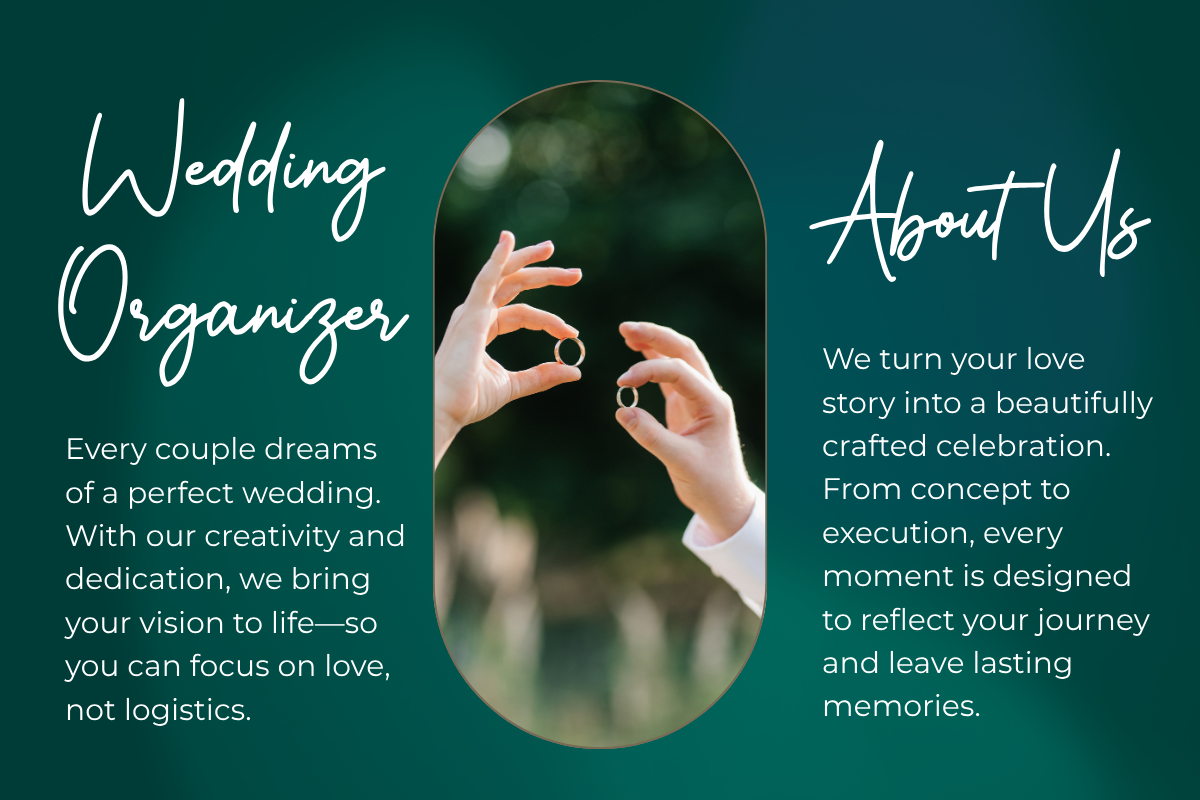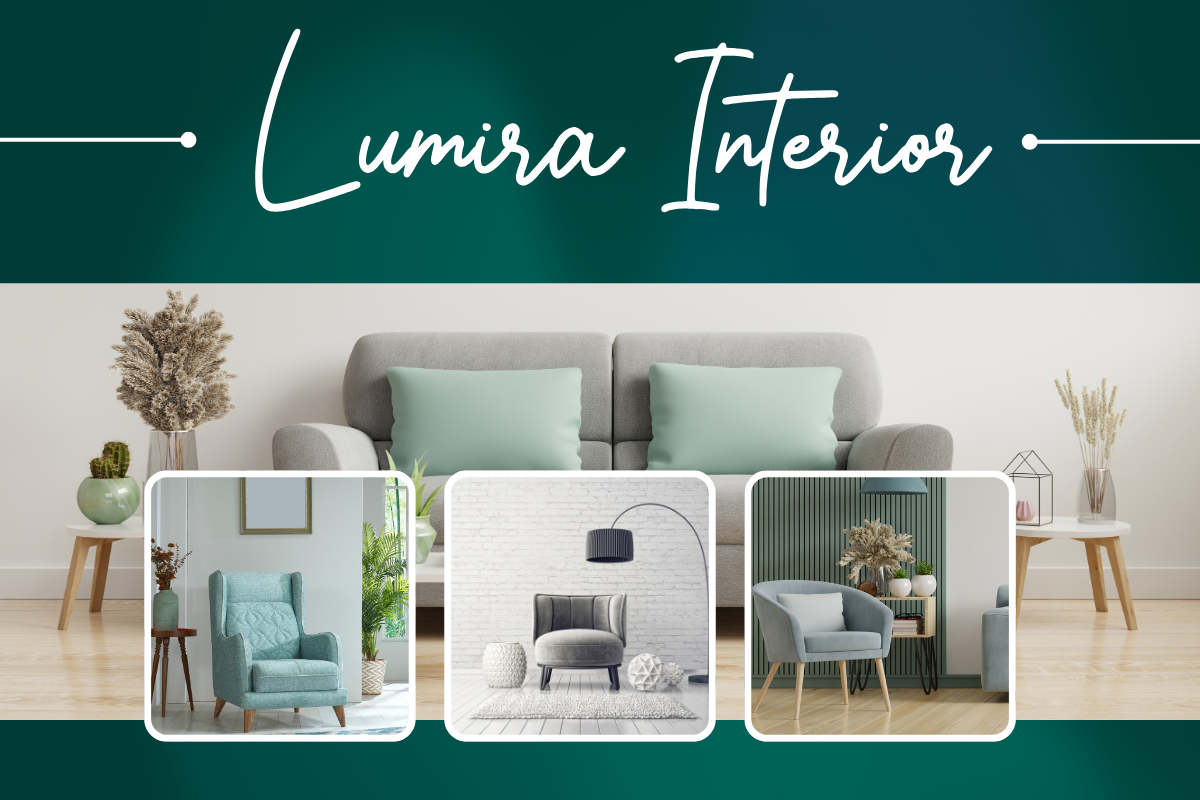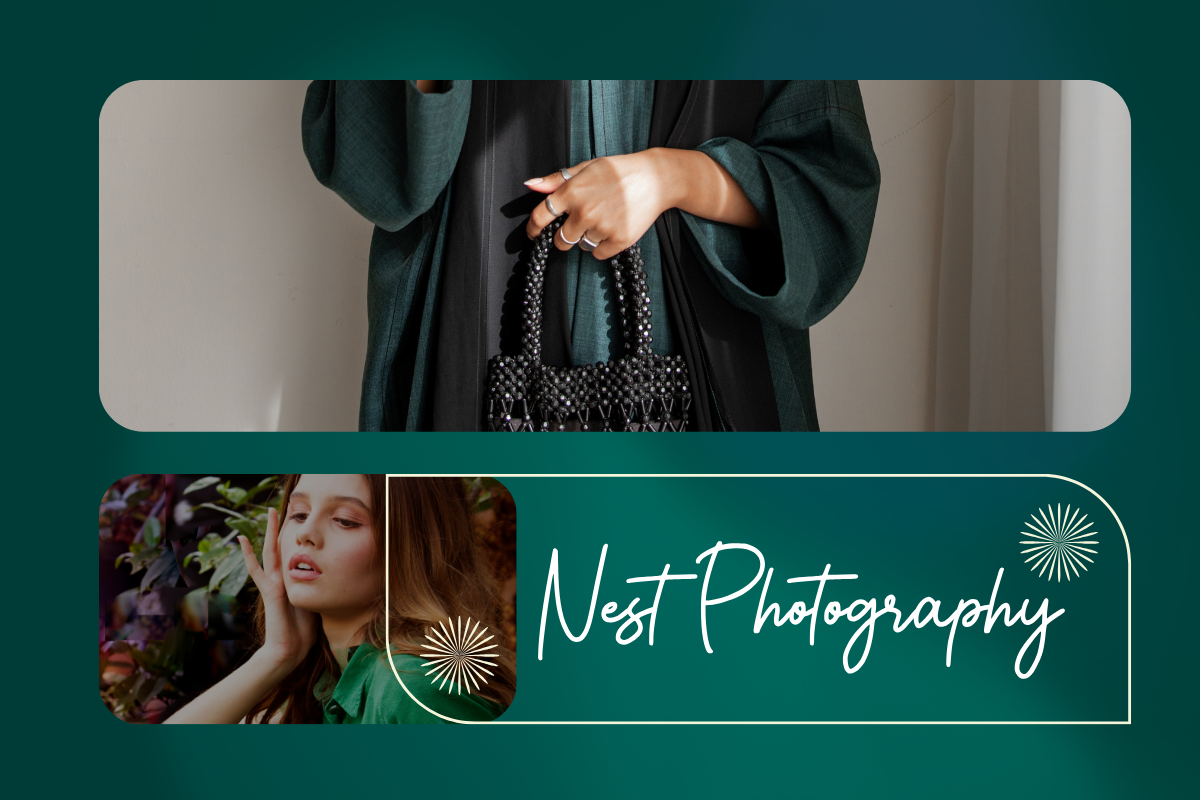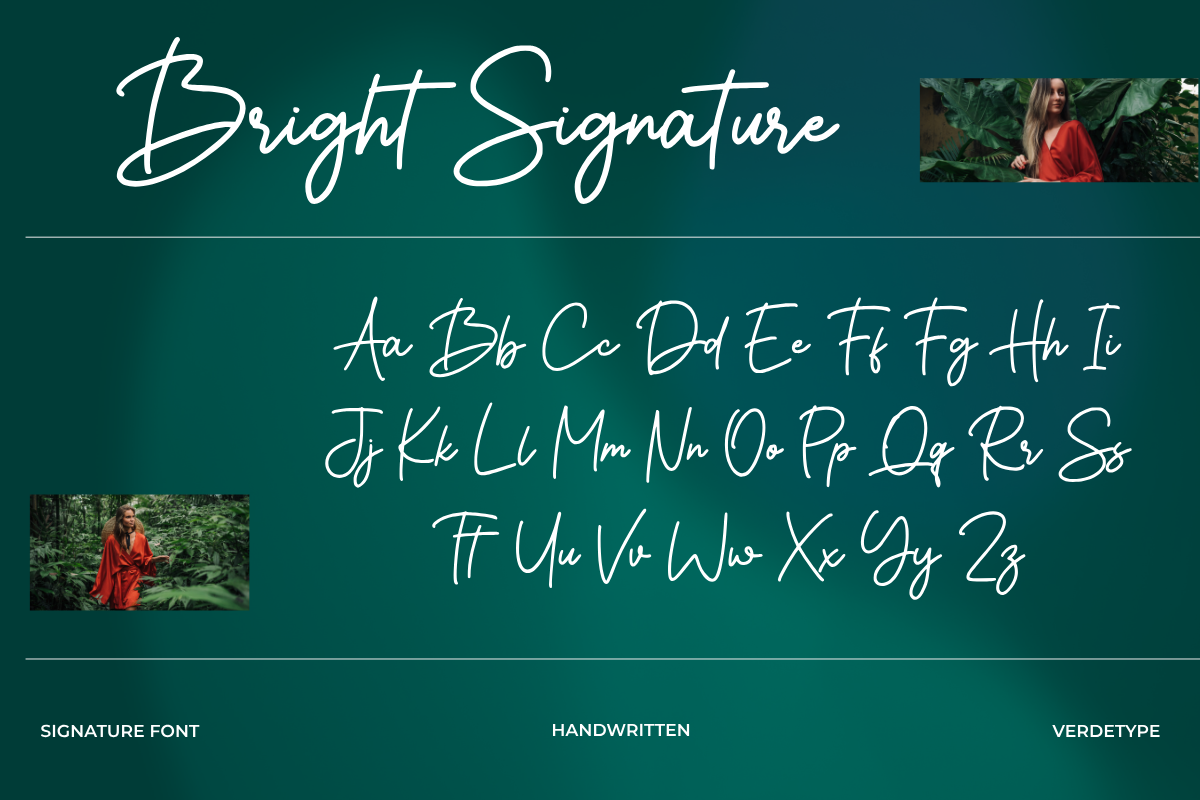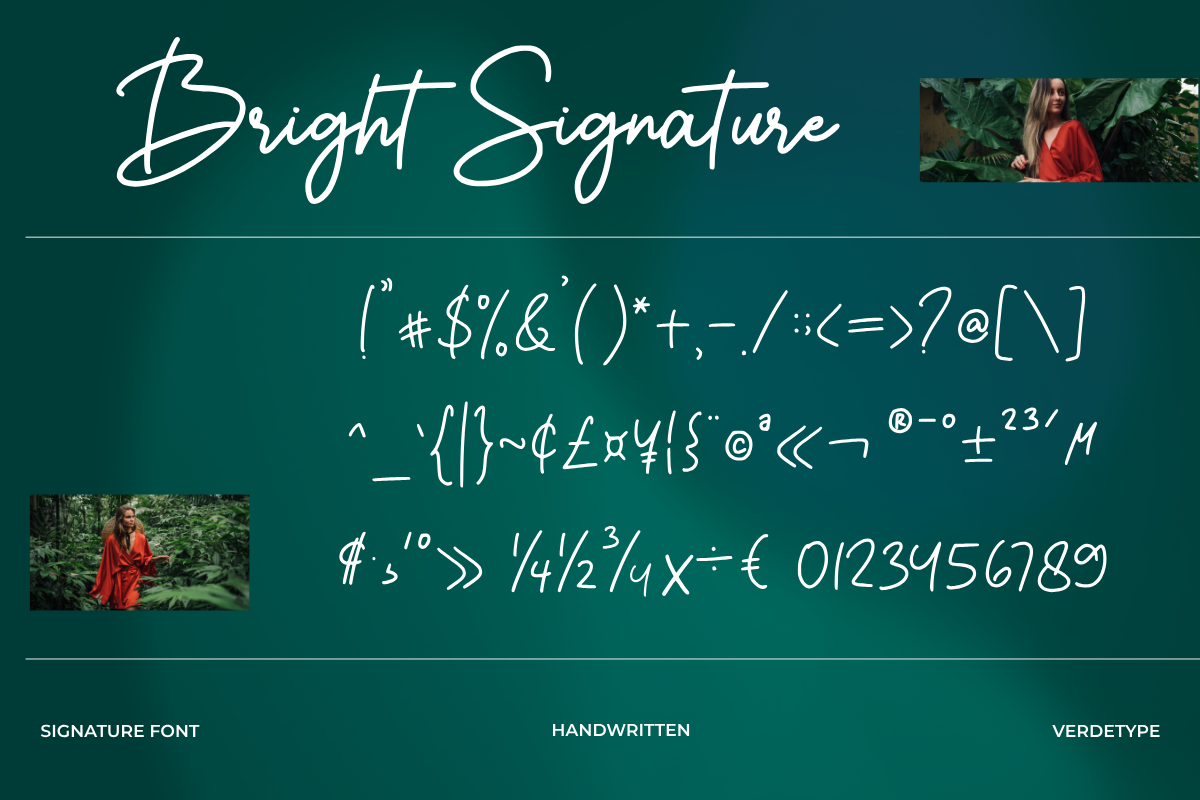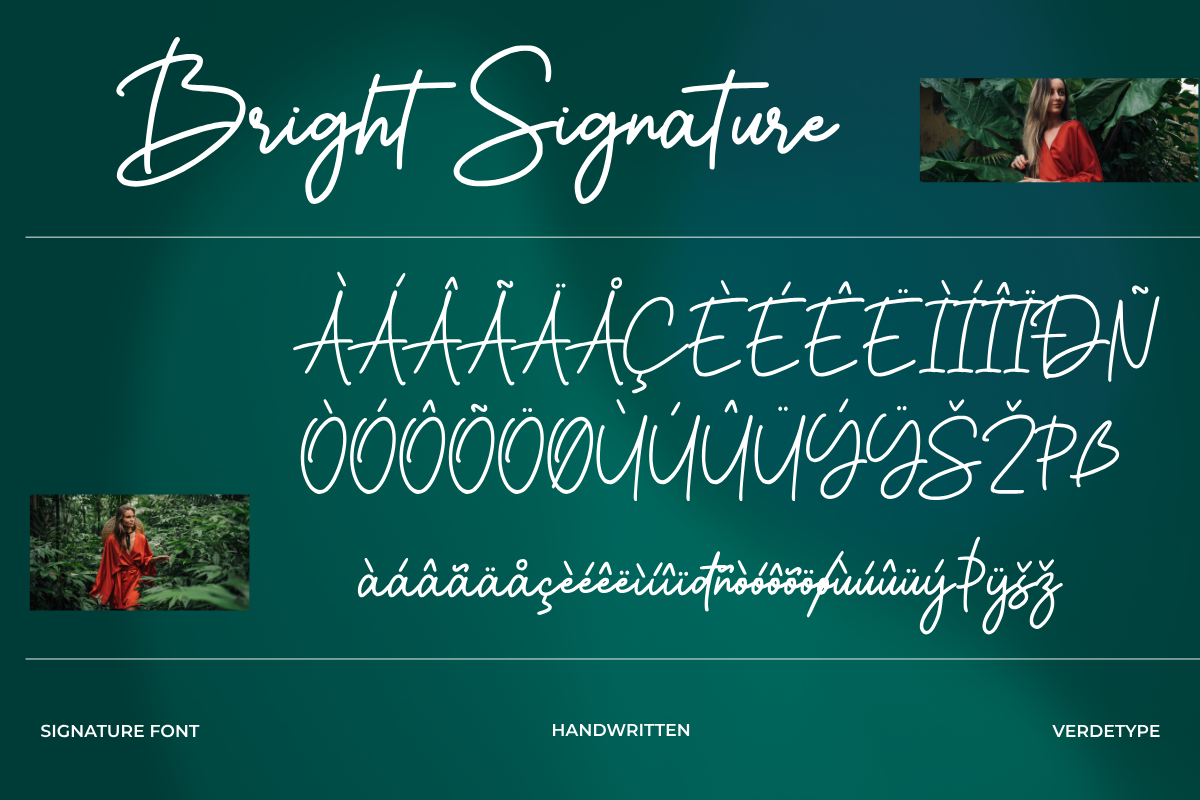
Elevate your designs with Bright Signature, a stylish and modern handwritten signature font crafted to bring elegance, authenticity, and personal charm to your visual identity. Designed with a natural flowing stroke, this font perfectly mimics real handwriting to give your brand an exclusive, high-end, and intimate aesthetic.
Whether you are creating a luxury brand identity, high-end packaging, or editorial layouts, Bright Signature adds an effortless touch of sophistication.
• Full Set of Uppercase and Lowercase Letters
• Numbers, Punctuation & Symbols
Perfect For:
• Branding & Logos: Luxury brands, fashion labels, photography watermarks, and personal logos.
• Editorial & Print: Magazine headlines, book covers, wedding invitations, and stationery design.
• Digital & Social Media: Aesthetic Instagram quotes, digital planners, website banners, and content creation.
• Product Packaging: Cosmetics, perfume bottles, apparel tags, and boutique packaging.
Why You'll Love It:
• Natural & Authentic: Continuous strokes and smooth curves for a genuine hand-drawn signature feel.
• Versatile & Modern: Pairs beautifully with clean sans-serif and high-contrast serif fonts.